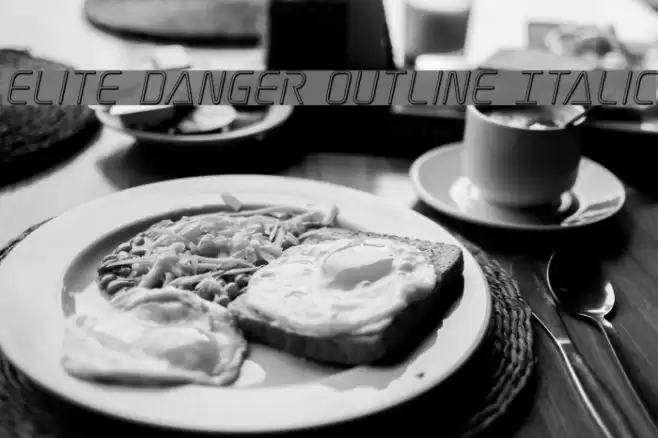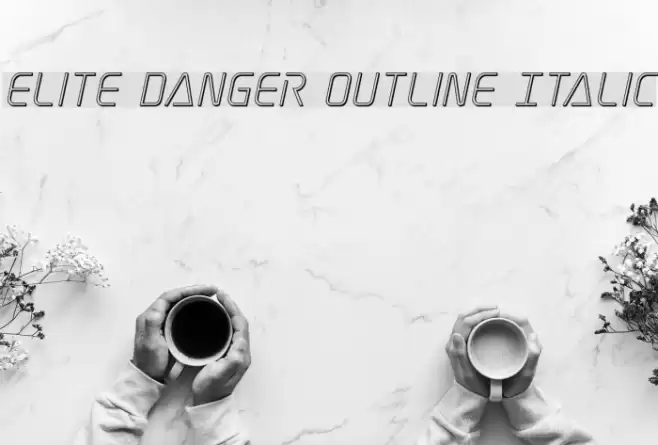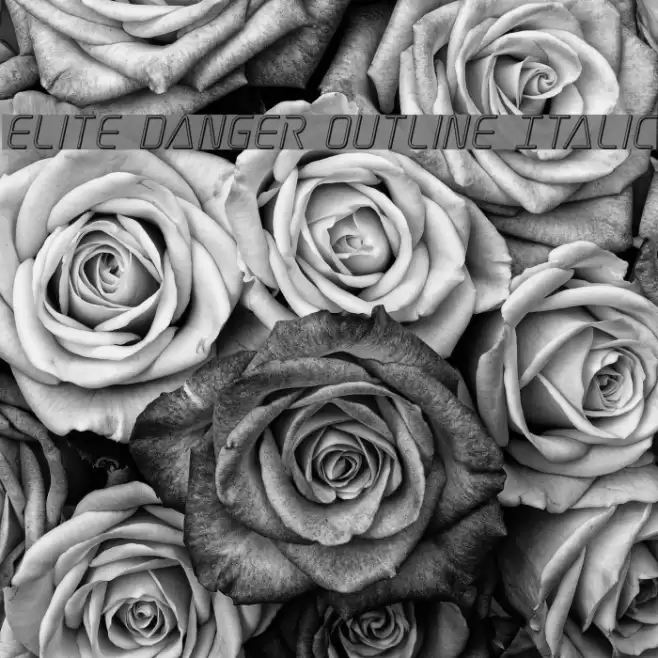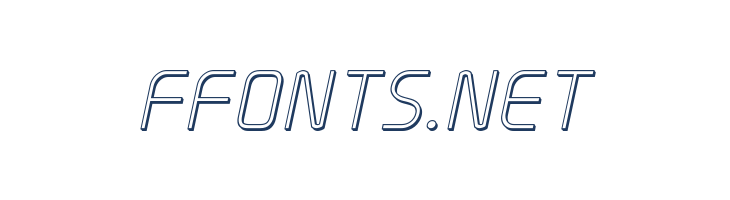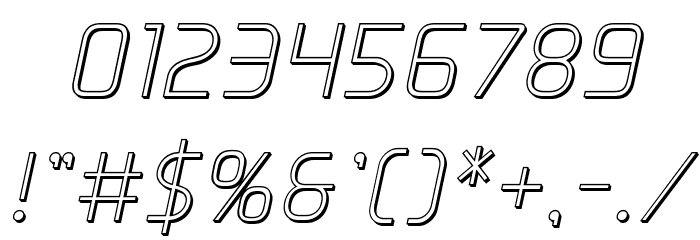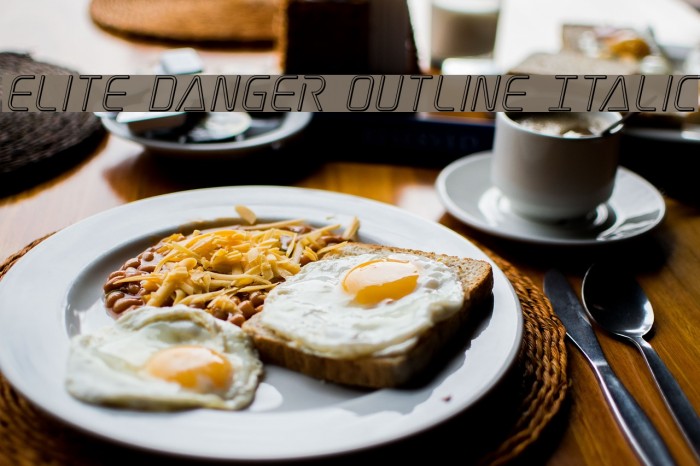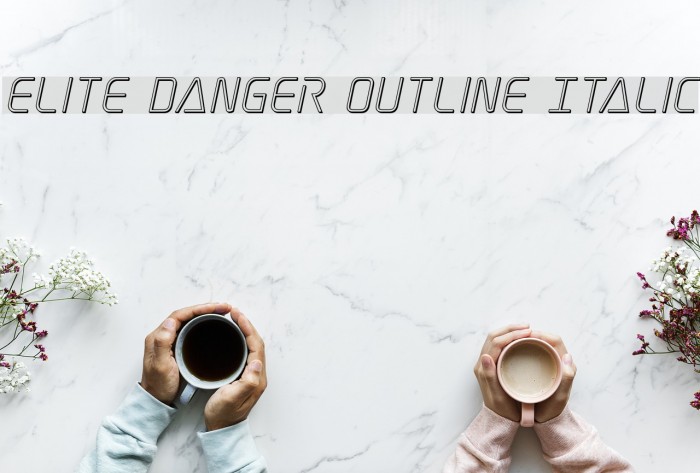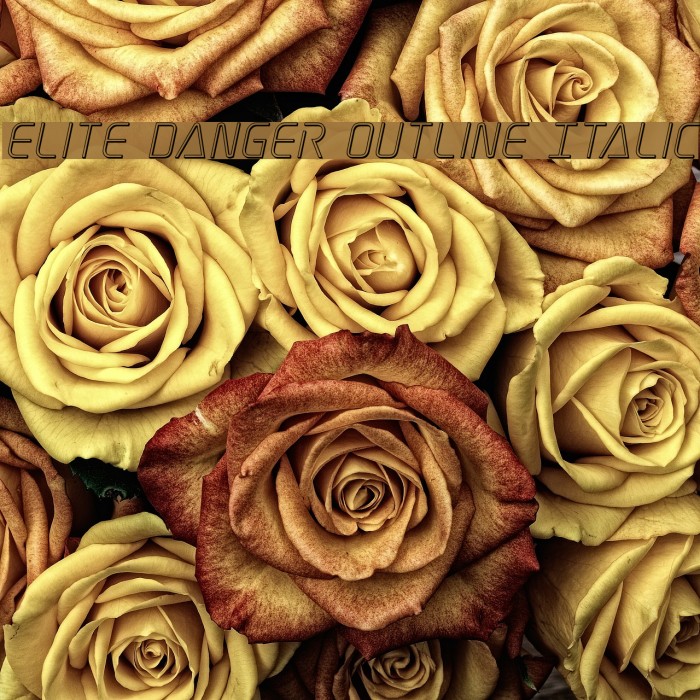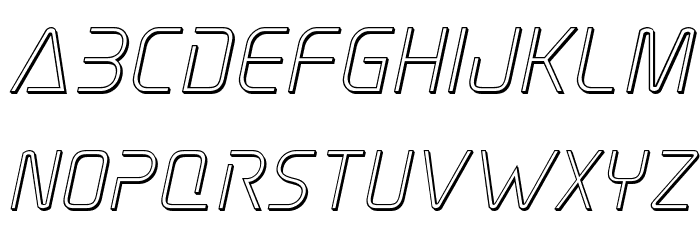
Elite Danger Outline Italic Font
Elite Danger Outline Italic Description
This font features a modern, futuristic design with an outline style that gives it a unique, airy appearance. The characters are italicized, adding a dynamic and forward-leaning aspect to the text. The geometric shapes and clean lines create a sense of precision and clarity, making it suitable for tech-oriented or contemporary projects. The uppercase and lowercase letters maintain a consistent style, with a slight slant that enhances the overall sleekness. The numerals and special characters are designed to match the alphabetic characters, ensuring uniformity across all text elements.
A modern, italicized outline font with a futuristic and geometric design from Sci-fi fonts.
- Proposed Projects: Ideal for tech branding, futuristic posters, video game titles, and digital interfaces.